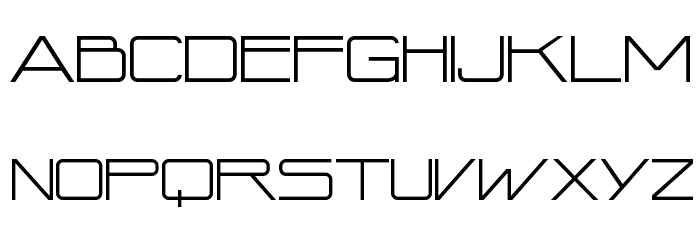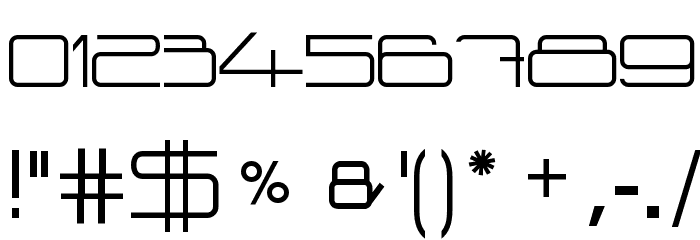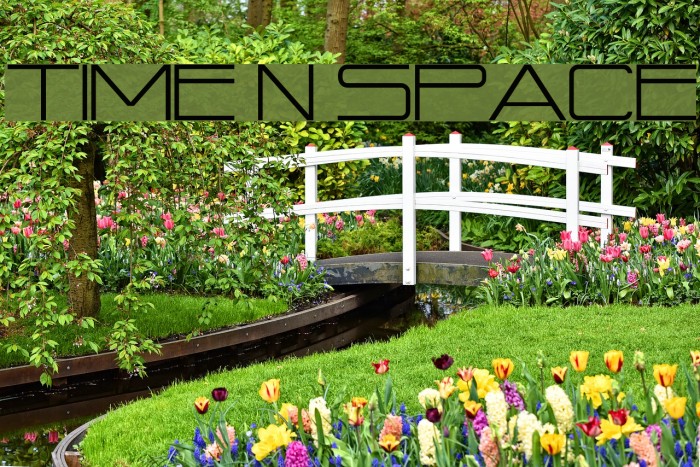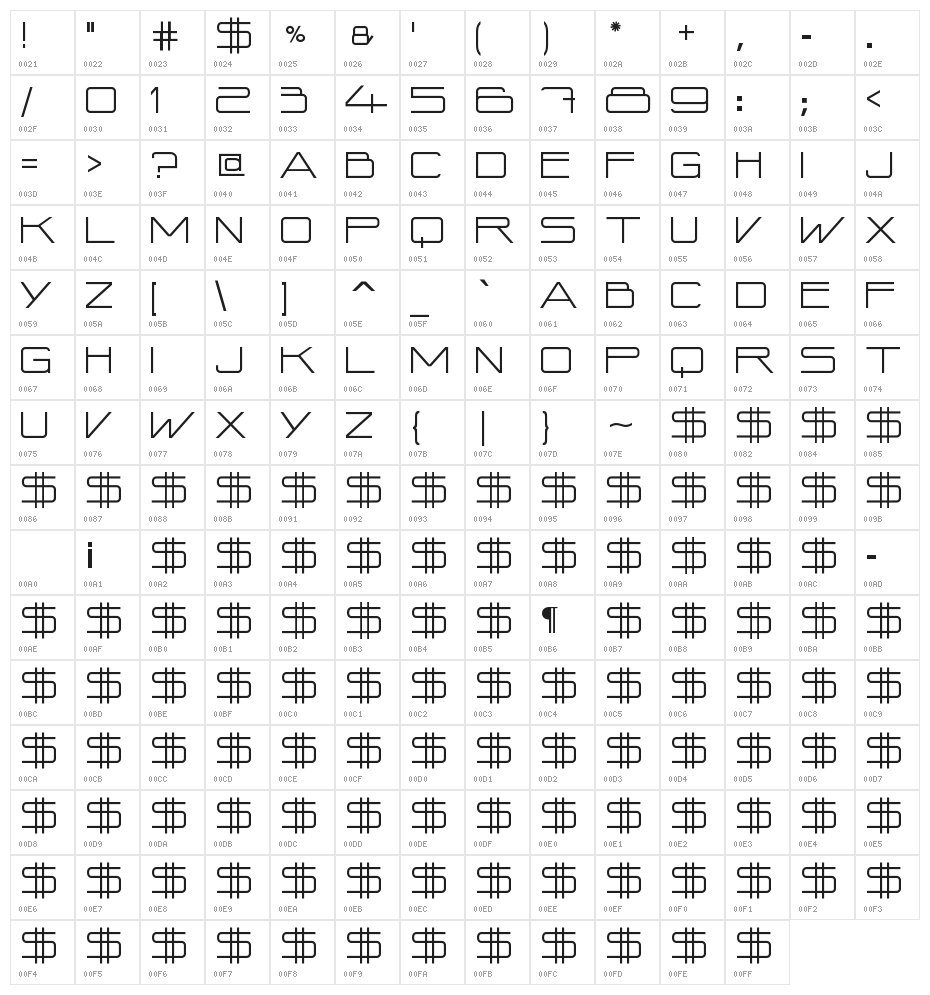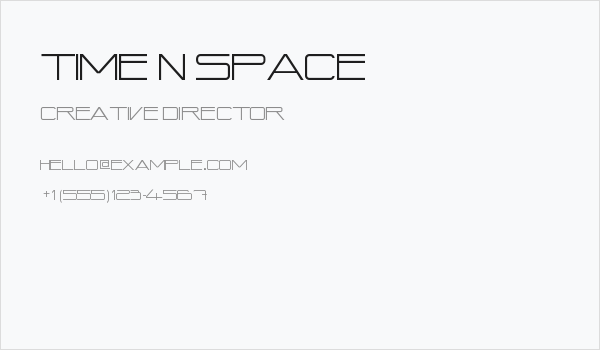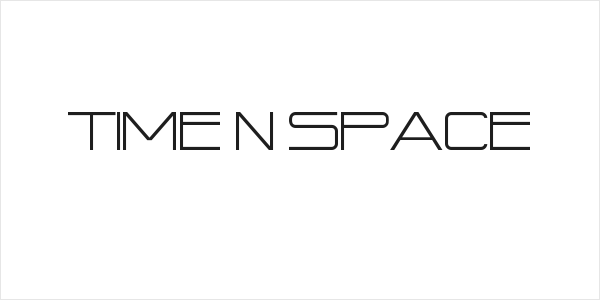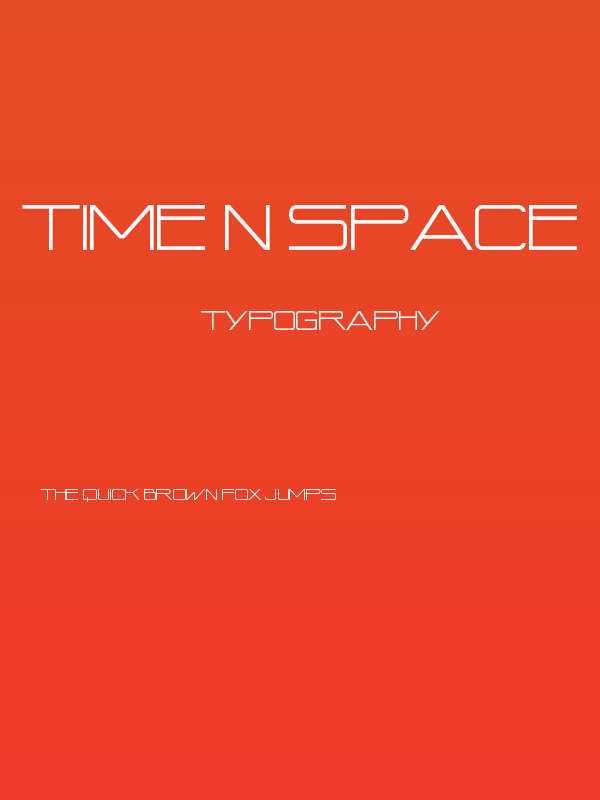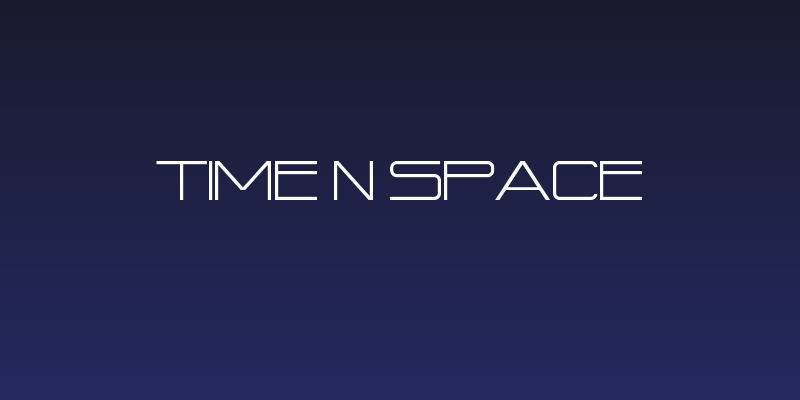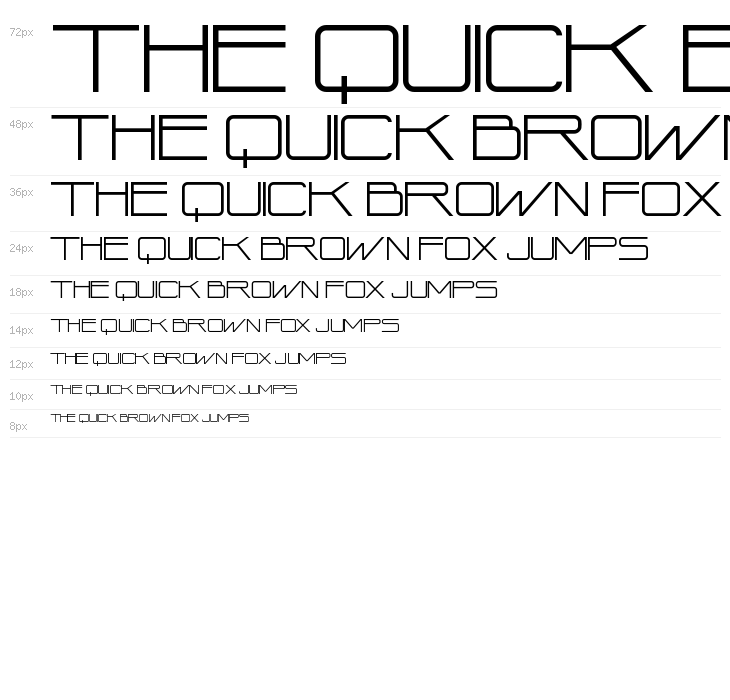
Time N Space Font
This font features a futuristic and geometric design, characterized by its clean lines and angular shapes. The uppercase letters are distinct with sharp edges and a consistent stroke width, giving it a modern and technical appearance. The lowercase letters maintain the same geometric style, ensuring uniformity across the typeface. Numbers and special characters are designed to match the overall aesthetic, with a focus on clarity and precision. The font's structure is ideal for projects that require a contemporary and innovative look.
A futuristic, geometric font with clean lines and angular shapes.
- Proposed Projects: Ideal for technology branding, sci-fi themed designs, digital interfaces, and modern advertising.
- Overall Style: Futuristic
- Use Case: Headlines, Logos, Digital Interfaces